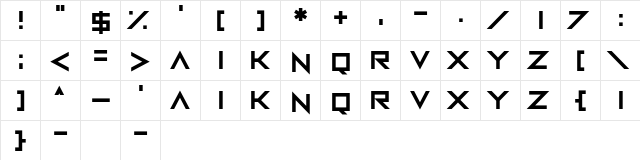
Robot Roc Not a Tilter Regular
| Designer | Allison James |
Design Context for Robot Roc Not a Tilter Typeface
Robot Roc Not a Tilter is a composed and adaptable typeface that performs quietly and consistently across a wide range of design contexts.